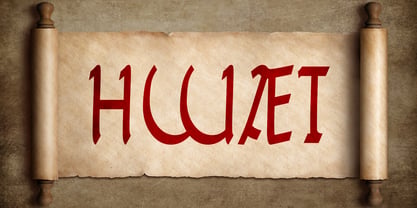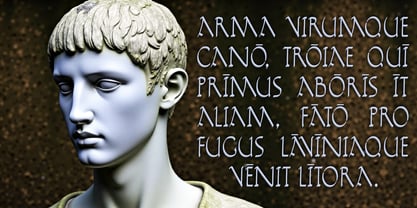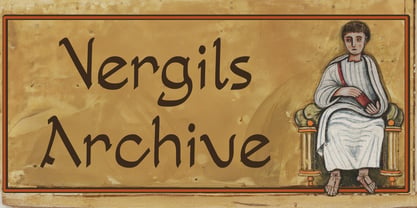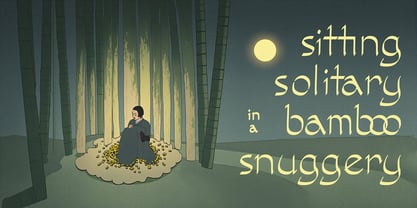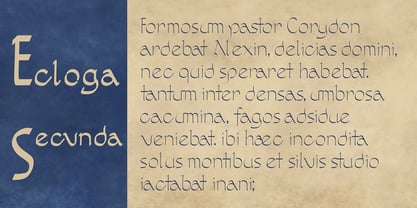
Vergils Archive
by Second Circle Font Foundry
The Vergils Archive Font Family was designed by Gregory Stevens and published by Second Circle Font Foundry. Vergils Archive contains 8 styles and family package options. More about this family
Vergils Archive is a tall, slender font inspired by a writing style called Rustic Capitals, popular in Rome more than 1000 years ago. The font is named for the poet Virgil (Vergil), and specifically refers to the letter shapes found in illuminated manuscripts such as Vergilius Vaticanus and Vergilius Romanus. Rustic Capitals are elegant, slender, and characterized by a distinct, often rapid, pen-driven style. It was popular for copying literary works and for display manuscripts, written with a trimmed broad stylus that produced distinctive thick and thin strokes. Although traditional Rustic Capital writing was uppercase-only, Vergils Archive extends the aesthetic to cover upper case, lower case, small capitals, accents, and other special letters found in the Extended Latin character set. The italic styles feature a strong (15°) rightward slant, recreating the scribal handwriting style that was popular at the time. Vergils Archive invokes the classical era of history: it is a font for orators, scribes, and marble statues. Ligatures and stylistic alternates allow you to move seamlessly between a highly stylized classical look and a simplified look designed for legibility. Look for more information and sample images on the Second Circle Font Foundry website, https://secondcircle.pro